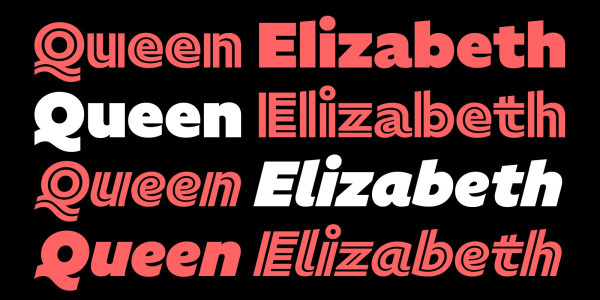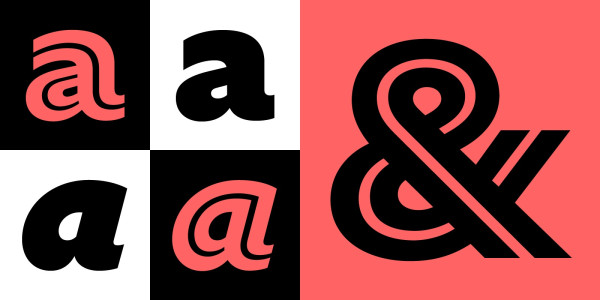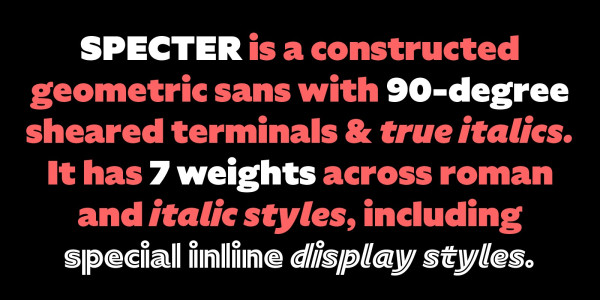
Specter Font
Specter Font is a constructed geometric sans with 90 degree sheared terminals and true italics. It is available in 7 weights with roman and italic styles, including special inline display styles. Specter was inspired by early 20th century sans serifs with similar features: Granby, Metro, and Tempo, all geometrically- constructed designs with elegant proportions and sharp details.
Specter Font takes a novel approach by ignoring calligraphy, resulting in shapes that are almost like cut paper laying on top of each other. Flat terminals allow for tight typesetting, and a friendly lowercase and unique italic create a charming and refined personality. And SpecterInline is ready when you need a dramatic display face.